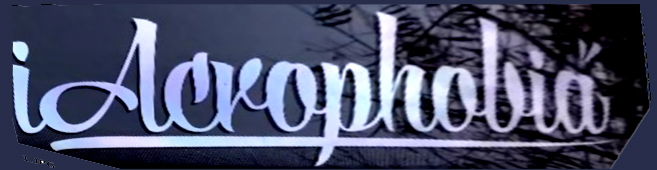
this Font is from a Tuninggroup calls "iAcrophobia"
I can't find an exact match either...
Take into account that some letters (like 'c' or initial 'i') may have been modified by the logo artist to make the logo more unique.
If you want a starting point to recreate the design the following similar fonts could be useful:
(a) RamplerScript
(b) Bistro Script
Here is a perspective-corrected image to make your quest easier: